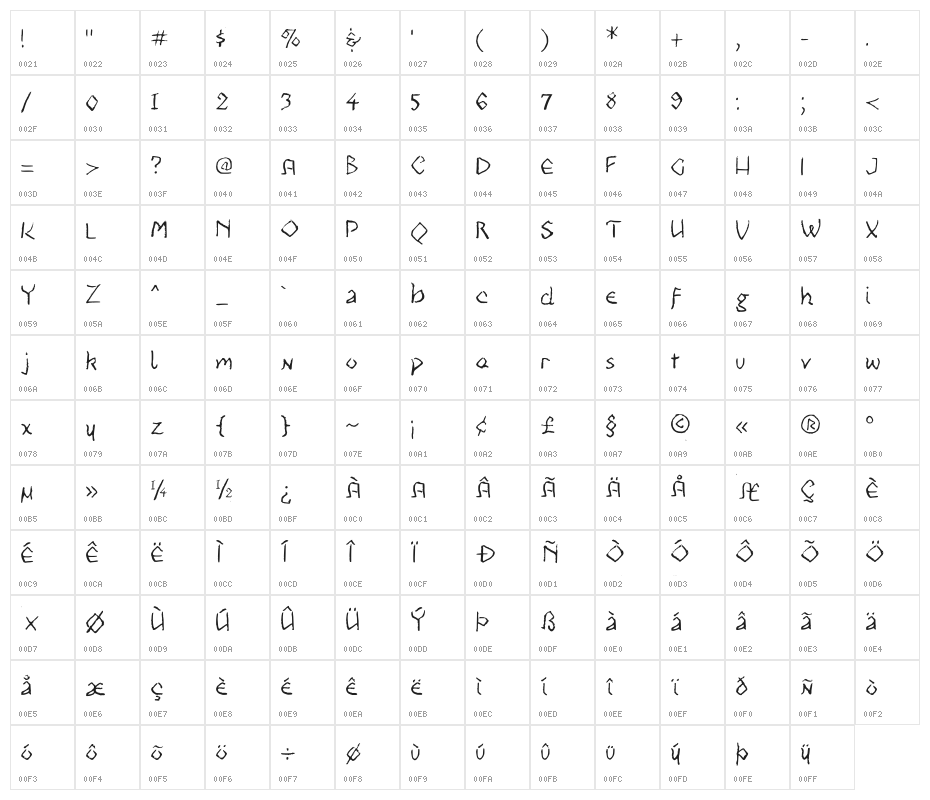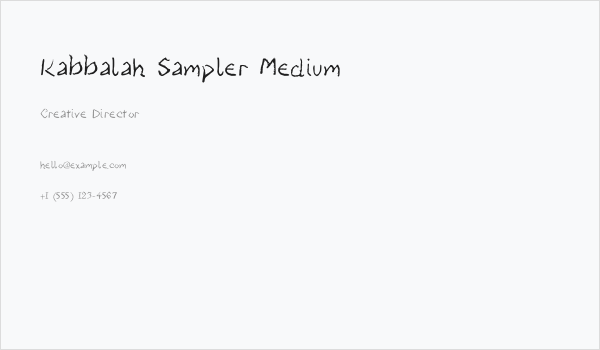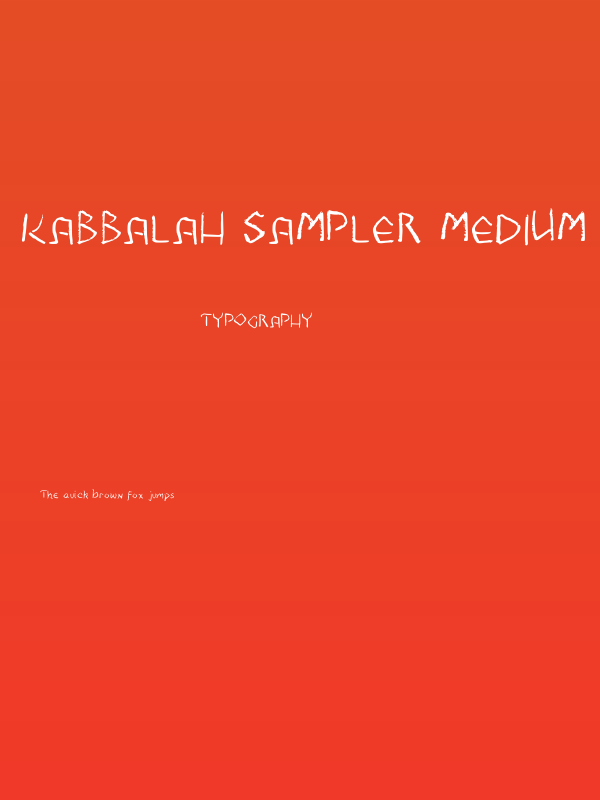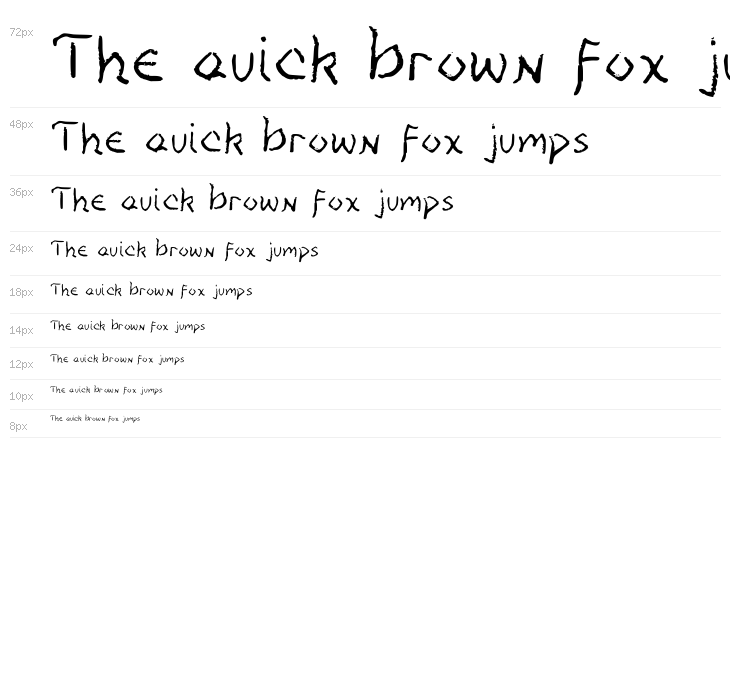
Kabbalah Sampler Medium Font
Kabbalah Sampler Medium Description
This font features a unique, hand-drawn style with a slightly irregular and organic appearance. The characters have a rough, textured look, reminiscent of ancient scripts or calligraphy. The uppercase and lowercase letters maintain a consistent style, with angular lines and sharp edges that give a sense of movement and dynamism. The numbers and special characters follow the same aesthetic, ensuring a cohesive look across all glyphs. This font's distinct personality makes it stand out, offering a blend of historical and artistic elements.
| Proposed Projects | Ideal for projects that require a historical or mystical theme, such as book covers, posters, or branding for artisanal products. |